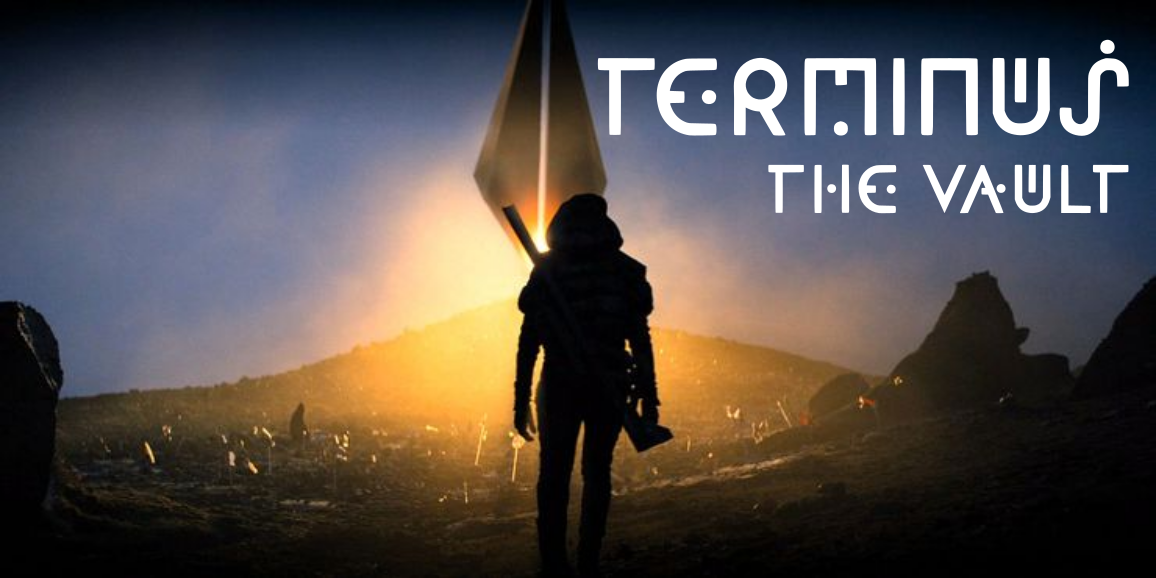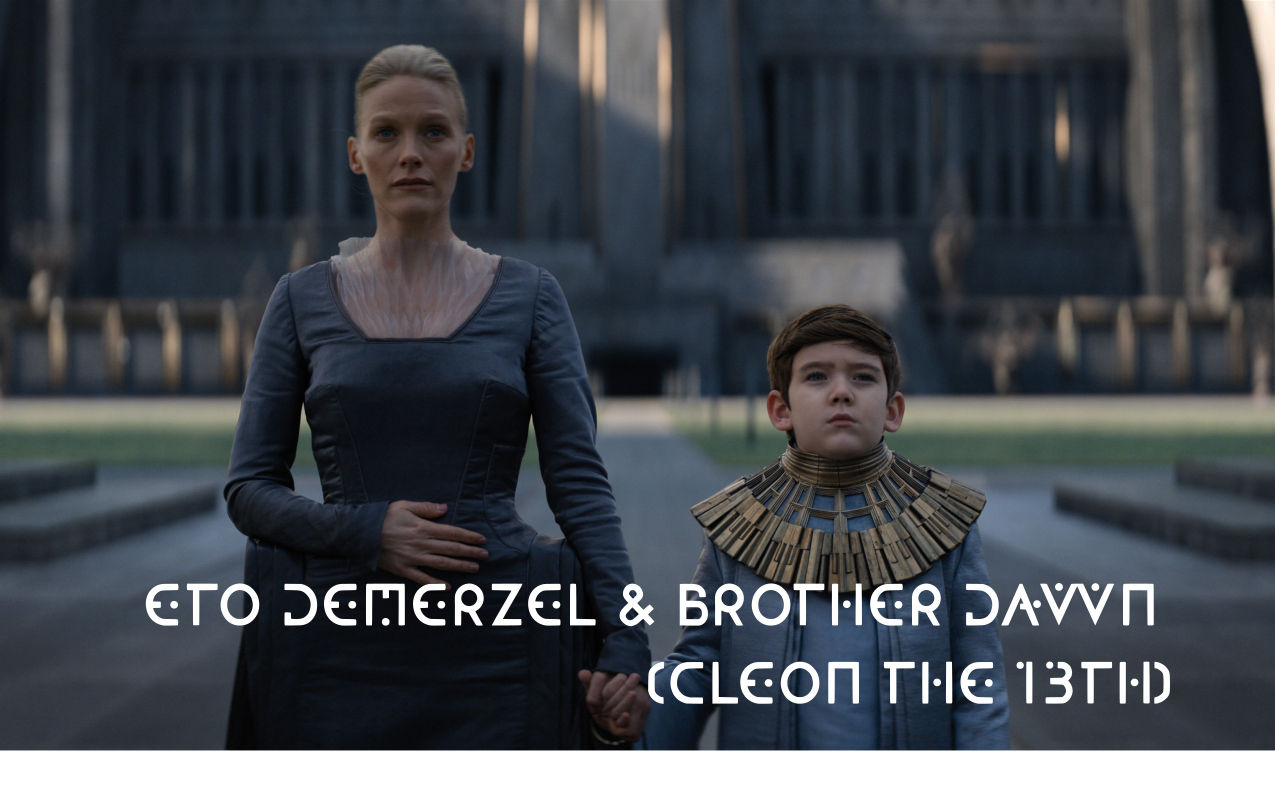
Foundation One Font
Foundation One Display Font
Based on the central font design used in Foundation, the Apple TV+ series based on the Asimov books, to indicate a change in context, location or time.  A free font released with the Open Font License (OFL).